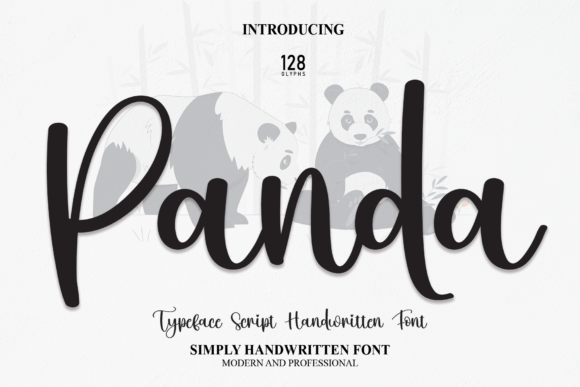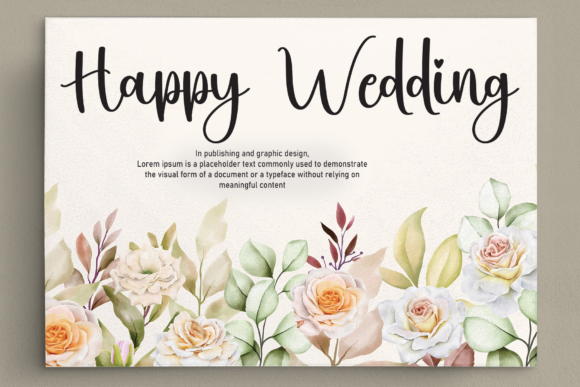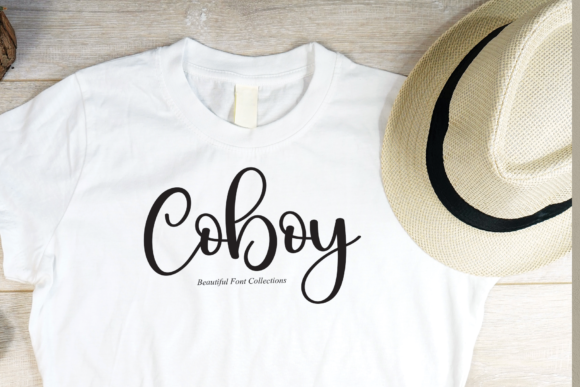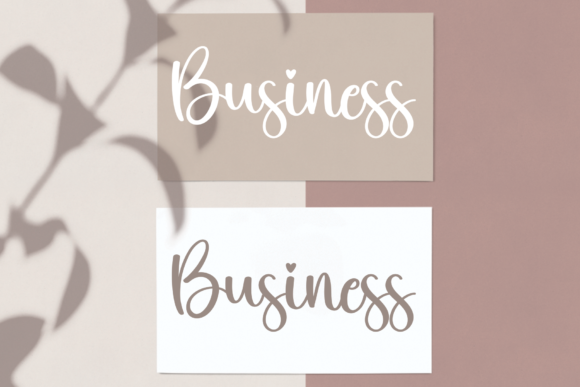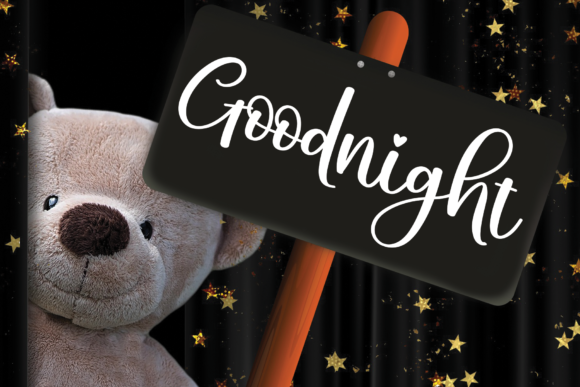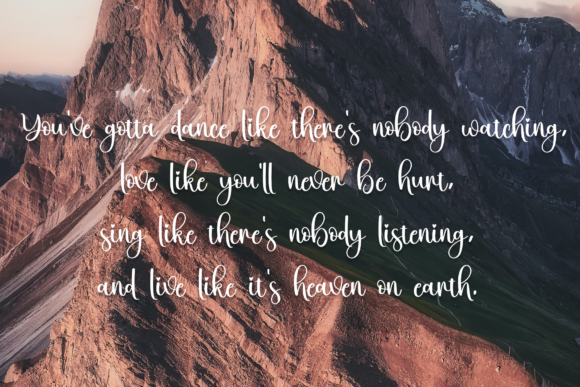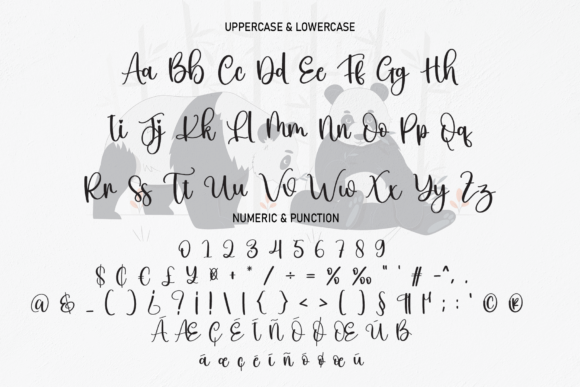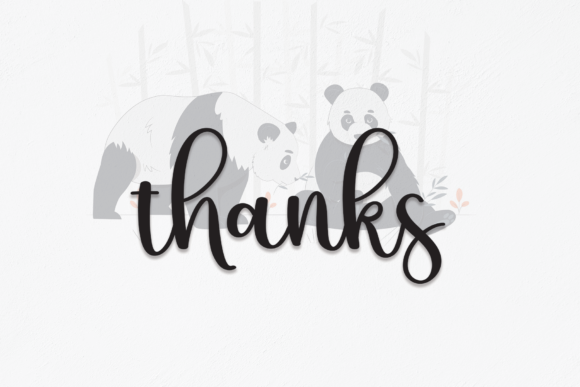
Panda Font
About Panda Font
Panga’s letters offer an exquisite touch, making them an ideal choice for an array of creative projects. From captivating wall displays to elegant wedding invitations, attention-grabbing social media post logos, compelling advertisements, and sophisticated product packaging, Panga’s letters bring a distinctive and handwritten taste to each endeavor.
The versatility of Panga’s letters extends seamlessly to product designs, where their unique charm can enhance the visual appeal of any item. Whether applied to labels, photography, or watermarks, these letters add a personal and artistic touch that sets your creations apart.
The graceful curves and thoughtful design of Panga’s handwritten script make it a perfect fit for invitations and stationery. Infuse your event announcements and personal notes with an extra layer of warmth and sophistication, creating a lasting impression on recipients.
No matter the project at hand, Panga’s letters are designed to elevate the aesthetic and evoke a sense of personalized craftsmanship. Their adaptability ensures a seamless integration into various design elements, allowing you to maintain a cohesive and stylish look across different mediums.
In essence, Panga’s letters are more than just a font; they are a versatile tool that can transform ordinary projects into visually stunning works of art. Whether you’re working on a wall display, crafting wedding invitations, or curating social media content, let Panga’s letters be the signature style that adds a touch of elegance and authenticity to your creative endeavors.